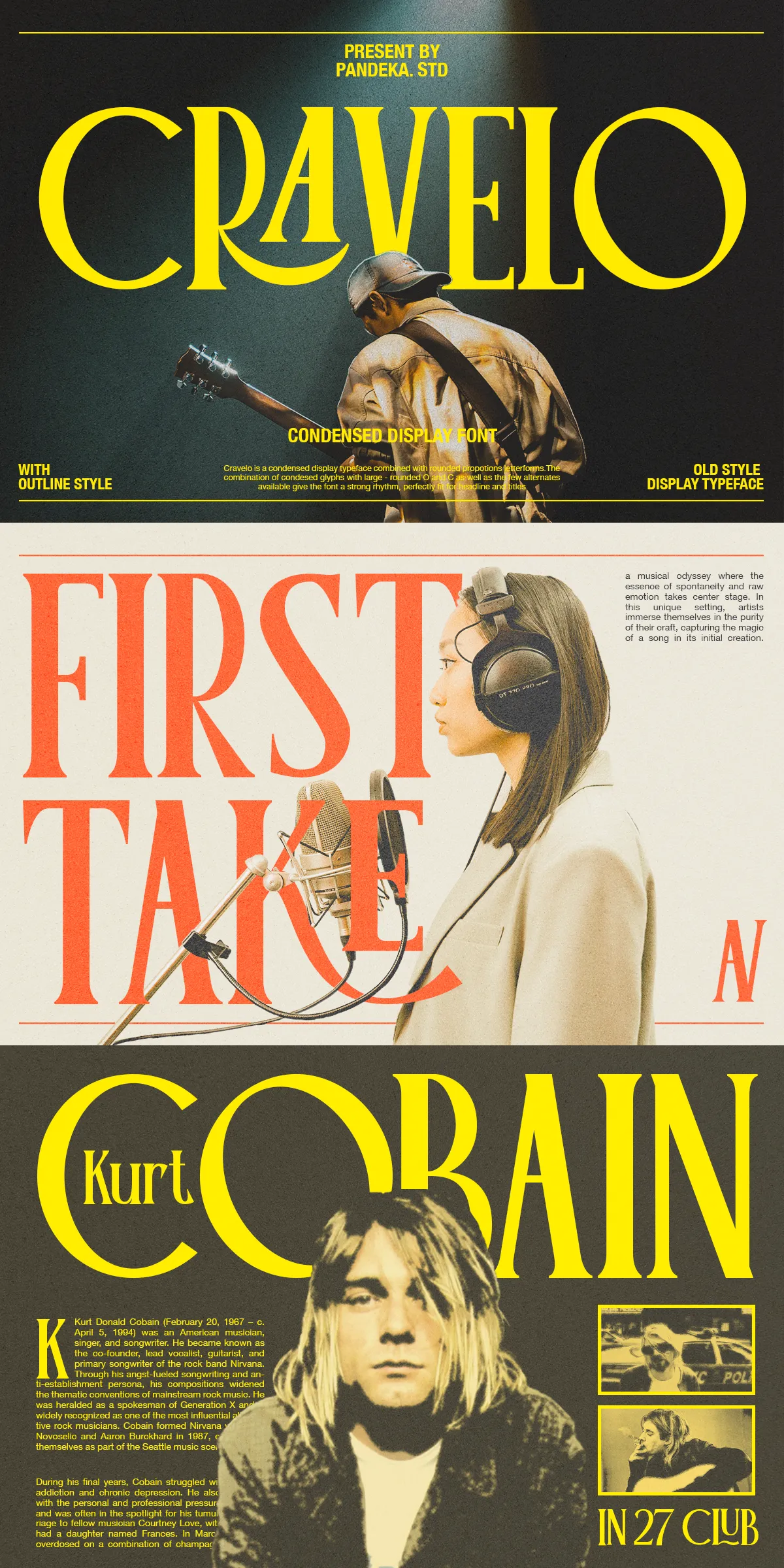
Cravelo – Vintage Rounded Serif
Step into the golden era of design with Cravelo, a striking vintage retro condensed display typeface that fuses timeless aesthetics with modern versatility. Featuring rounded letterforms, tight condensed proportions, and bold, rhythmic character spacing, Cravelo delivers a distinctive visual punch—ideal for creating unforgettable headlines, titles, branding elements, and poster designs that demand attention.
Design That Evokes Memory and Mood
Cravelo captures the soul of classic 1950s and 1960s lettering with its soft-edged glyphs, generous curves, and intentionally compressed structure. The oversized, rounded O and C create a strong visual anchor, establishing a unique rhythm that draws the eye and sets a playful yet sophisticated tone. With just a few carefully crafted alternates, each character adds subtle variation—giving your text personality, depth, and creative freedom.
• Condensed & Compact Design: Save space without sacrificing impact. Perfect for small-format layouts like flyers, book covers, or social media graphics.
• Rounded Letterforms: The soft, organic curves add warmth and approachability, softening the boldness of the condensed style for a balanced, inviting look.
• 300+ High-Quality Glyphs: Includes alternate characters, multilingual support, symbols, punctuation, numbers, and special design features—unlocking endless creative possibilities.
Designed for Real-World Creative Work
Cravelo isn’t just a nostalgic nod to the past—it’s a practical, powerful tool for modern designers. Whether you’re working on a retro-inspired poster, a luxury product label, or an editorial spread with vintage flair, Cravelo brings authenticity and cohesion to every project.
• Regular & Outline Styles: Use the clean, solid Regular style for maximum clarity, or select the Outline version for custom fill effects, embossing, or vector manipulation.
Built for Global Inspiration
Cravelo isn’t limited by language. It proudly supports multilingual typography, making it perfect for international brands, cultural projects, and global campaigns. From Western Europe to Latin America, from Africa to Southeast Asia—your message remains beautiful and legible across borders.
Unleash Your Creativity with Cravelo
This is more than a font—it’s a creative catalyst. Use Cravelo to:
• Design Headlines & Titles: Make your article, show, or campaign stand out with bold, memorable typography.
• Build Brand Identity: Create a distinctive voice with custom logos, slogans, and product names that embody vintage elegance.
• Curate Retro-Themed Content: Whether it’s a music festival poster, a coffee shop menu, or a retro fashion campaign, Cravelo delivers instant authenticity.
• Explore Typography Play: Swap out alternates, adjust spacing, and mix styles to build unique, hand-crafted text layouts with endless variation.
Go Beyond the Ordinary with Cravelo
Why blend in when you can stand out? Cravelo transforms ordinary text into a visual story. It’s not just about looking old—it’s about feeling timeless. The blend of rounded charm and tight structure gives your design rhythm, energy, and character.